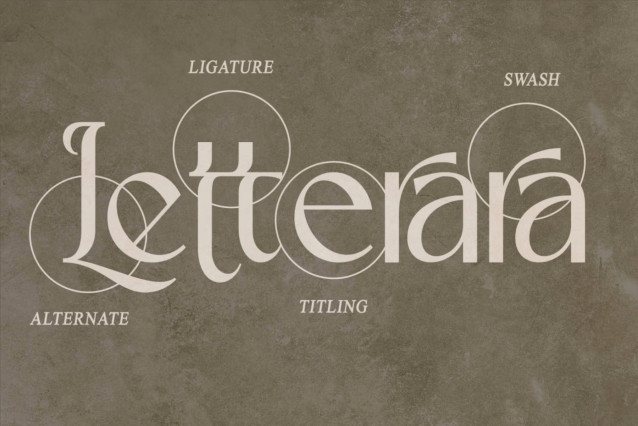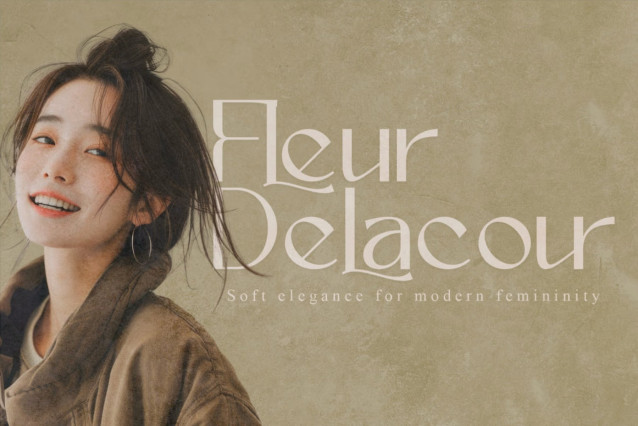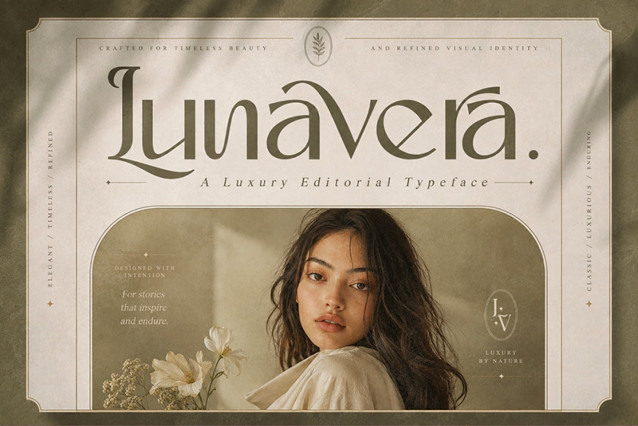
Lunavera Luxury Serif Font
Lunavera is a luxury editorial serif font featuring elegant curves, artistic alternates, swashes, titling characters, ligatures, numerals, punctuation, and multilingual support. Perfect for fashion logos, beauty branding, cosmetics, perfume packaging, magazines, wedding invitations, boutique identities, and premium editorial design.